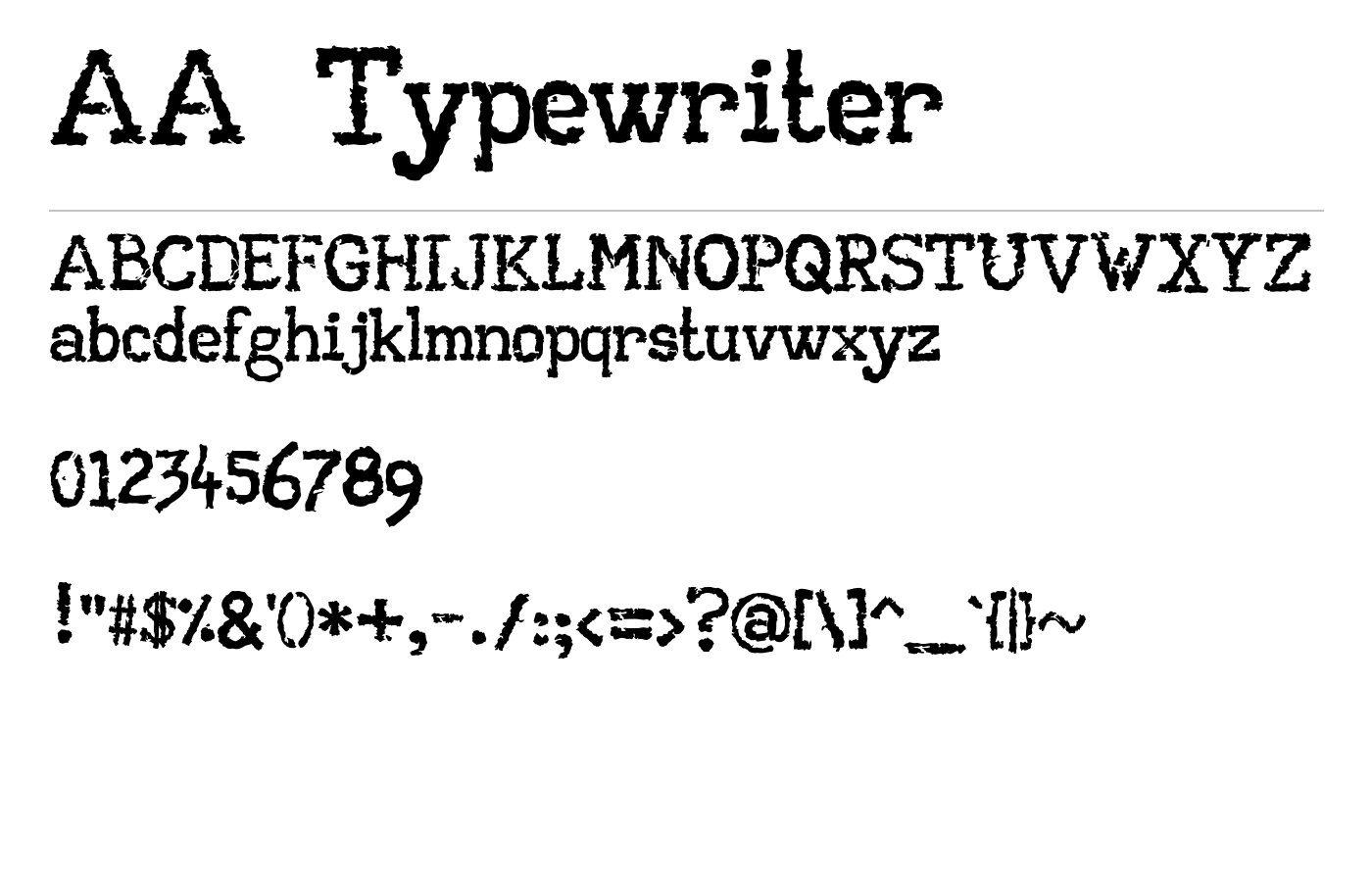
AA Typewriter is a distressed serif font that mimics the rough, imperfect texture of vintage typewritten text. It features a medium weight with normal width and a moderate x-height, showing moderate contrast between thick and thin strokes with uneven edges that evoke a nostalgic and raw feel. This font suits creative projects aiming for an old-school, authentic typewriter aesthetic, making it ideal for editorial designs, posters, or branding that seeks a retro, handmade touch.
AA Typewriter Font
About AA Typewriter Font